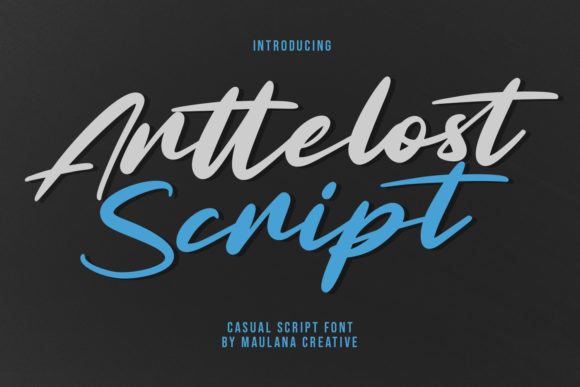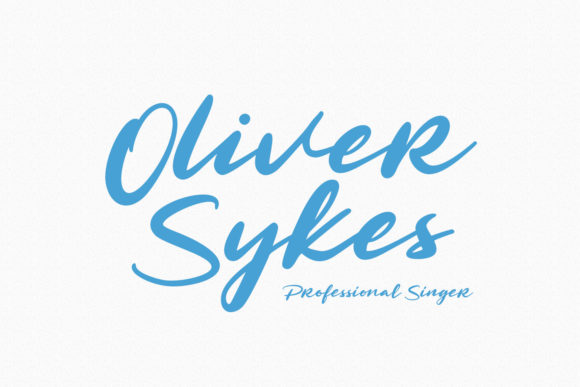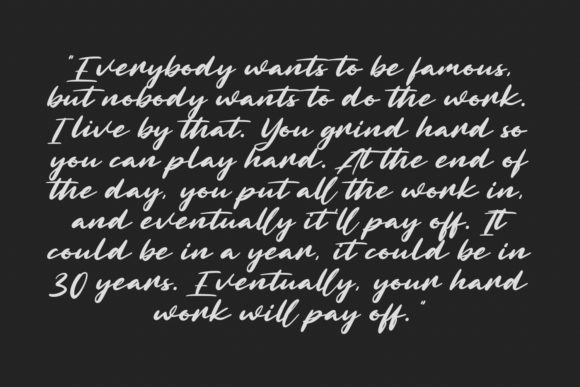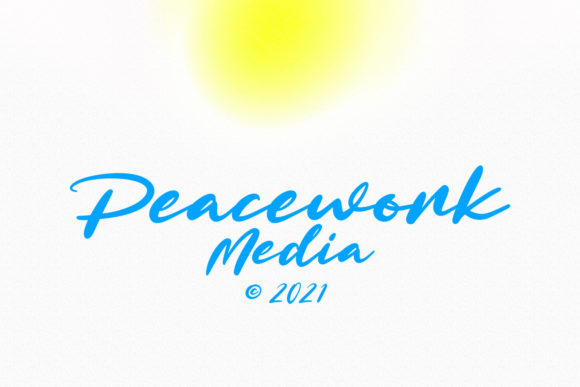
About Arttelost Script Font
Arttelost Script is a cool and trendy handwritten font. Whatever the topic, this font will be a wonderful asset to your font library, as it has the potential to enhance any creation.